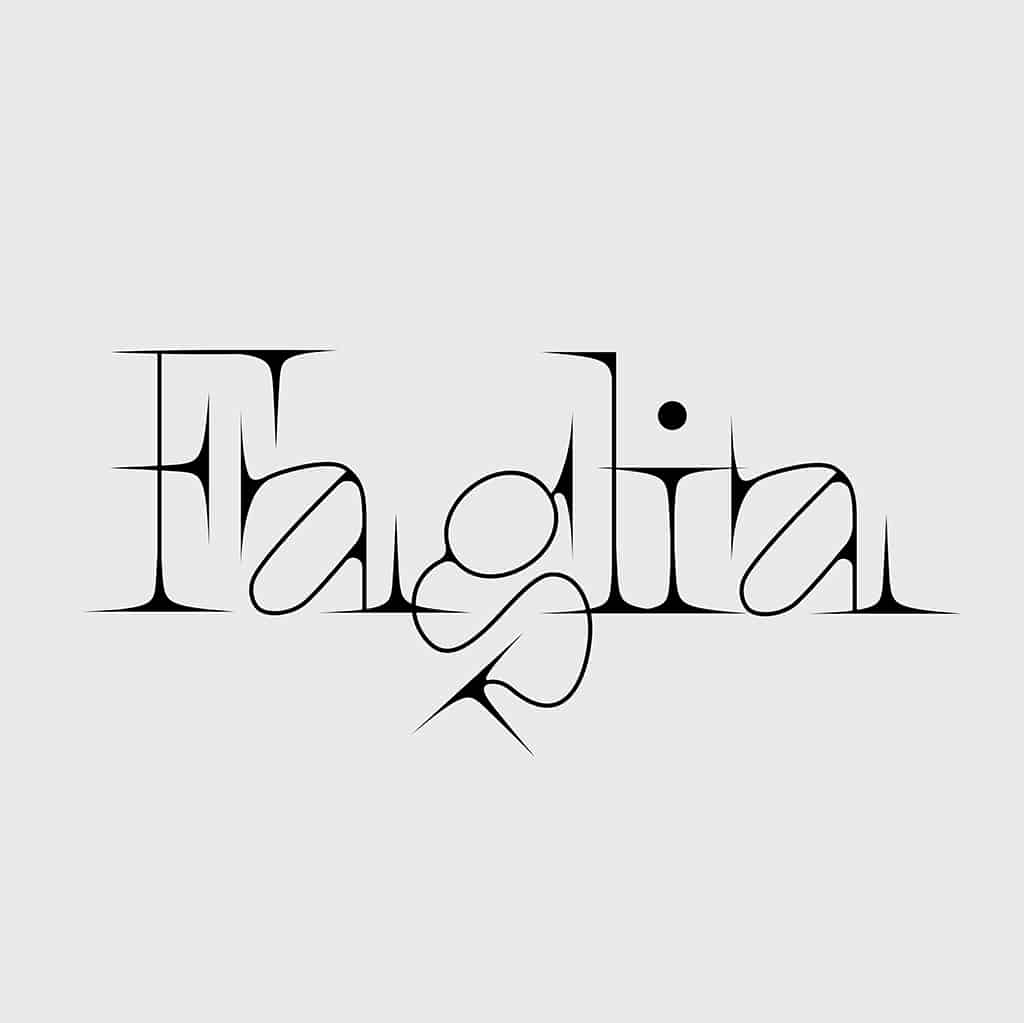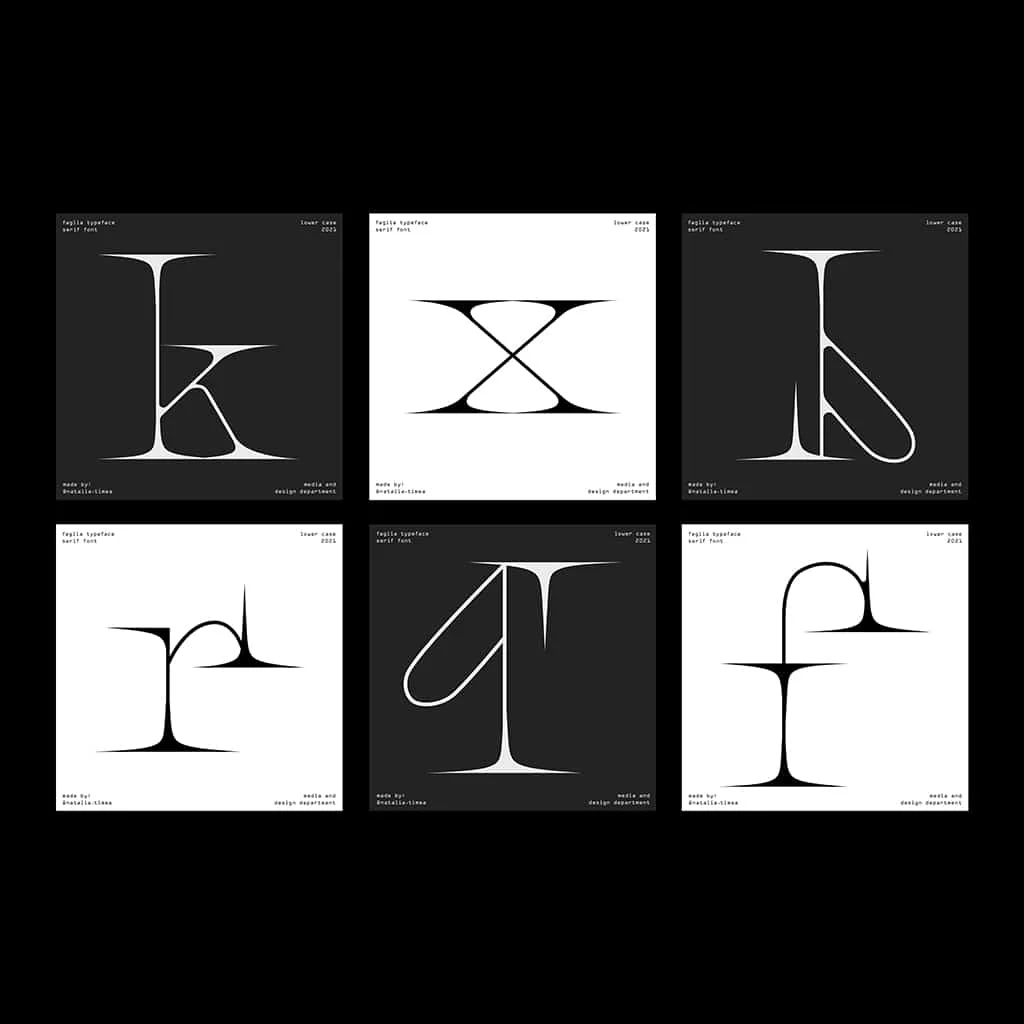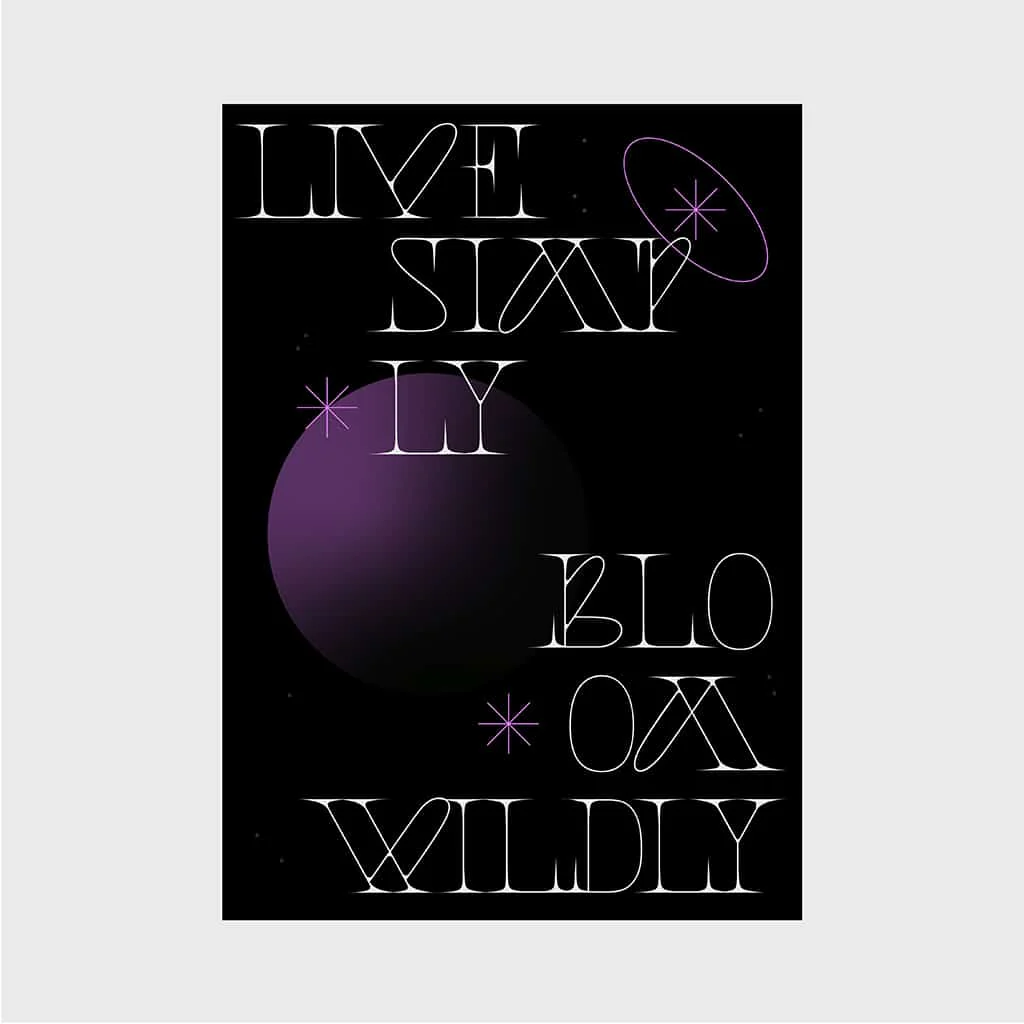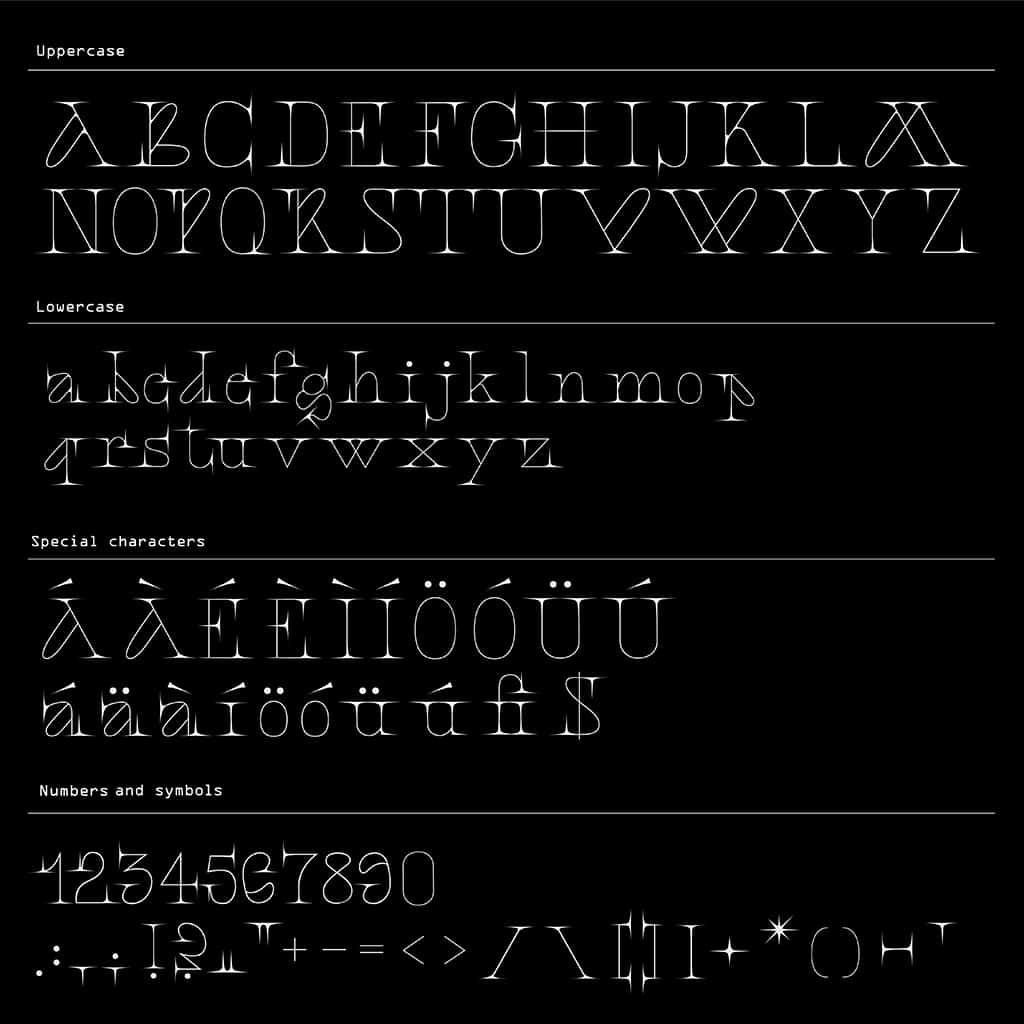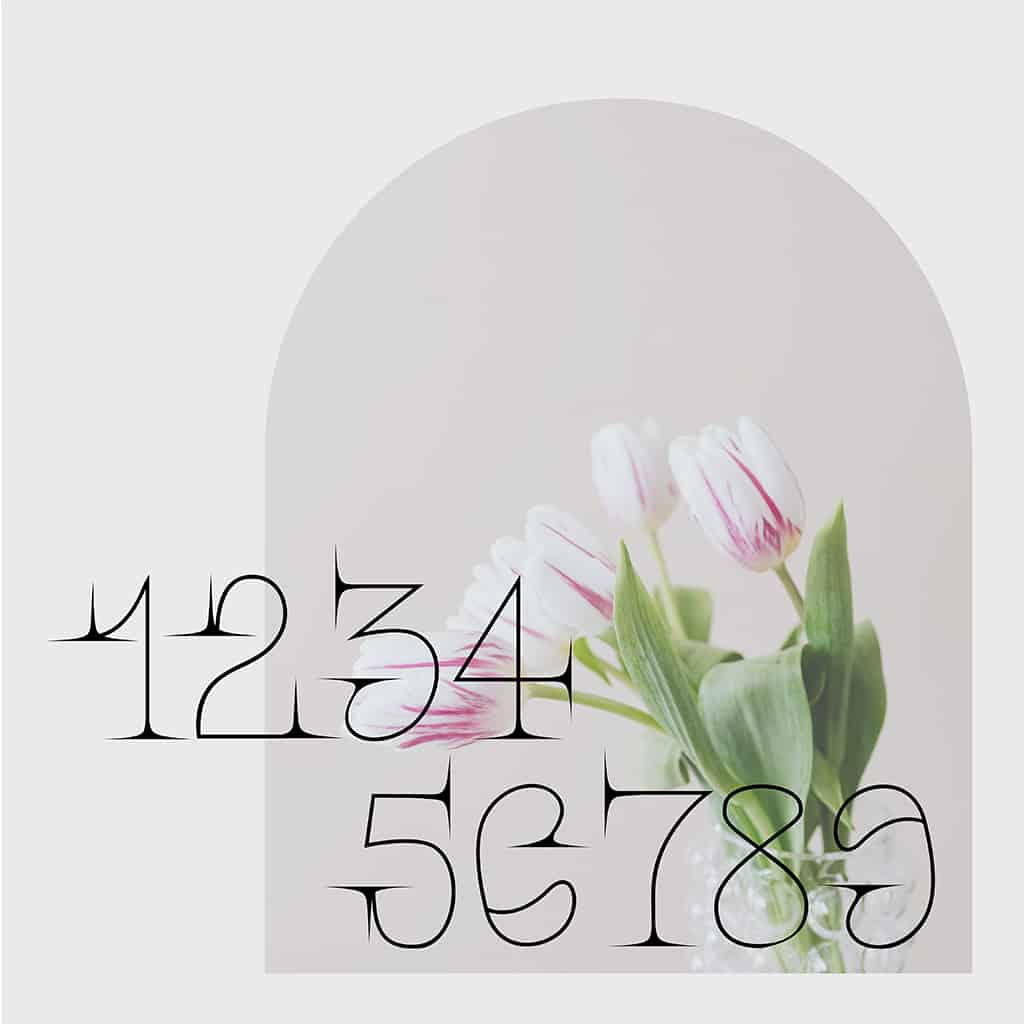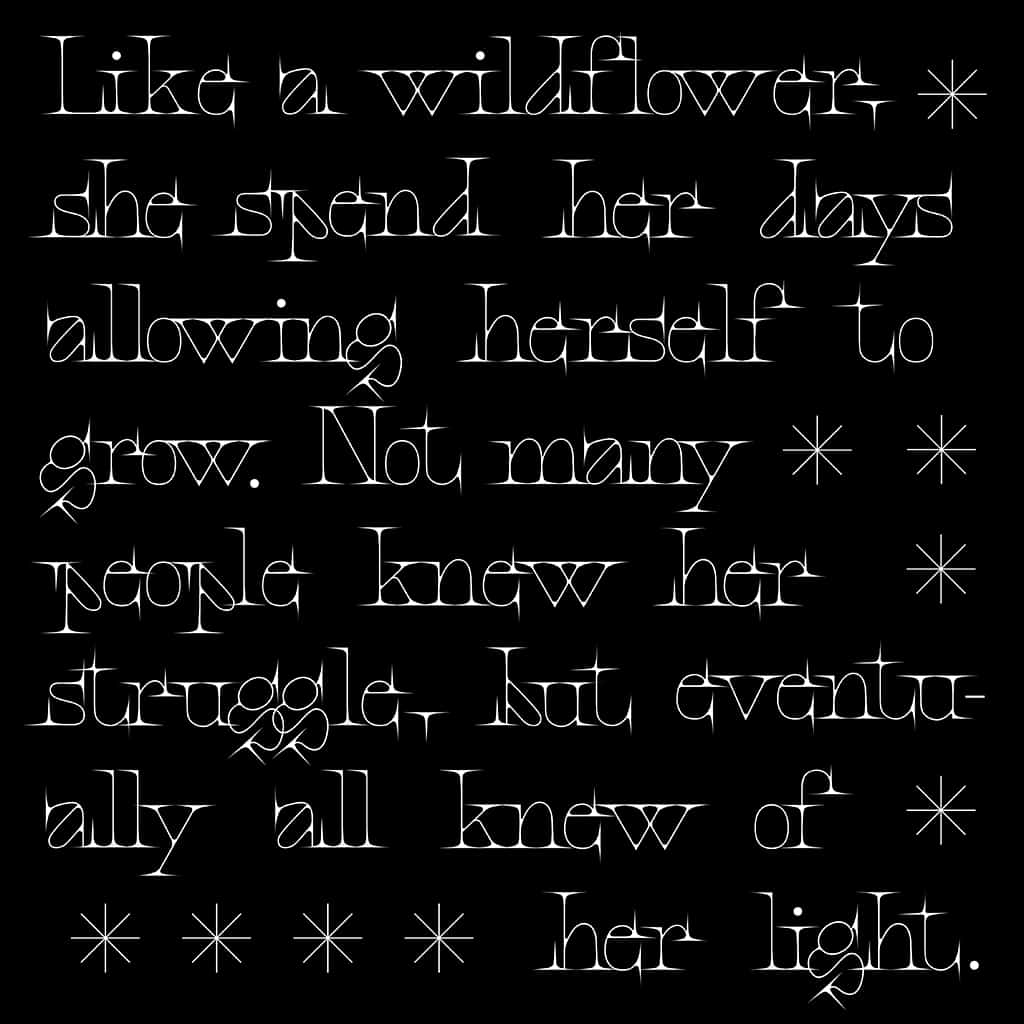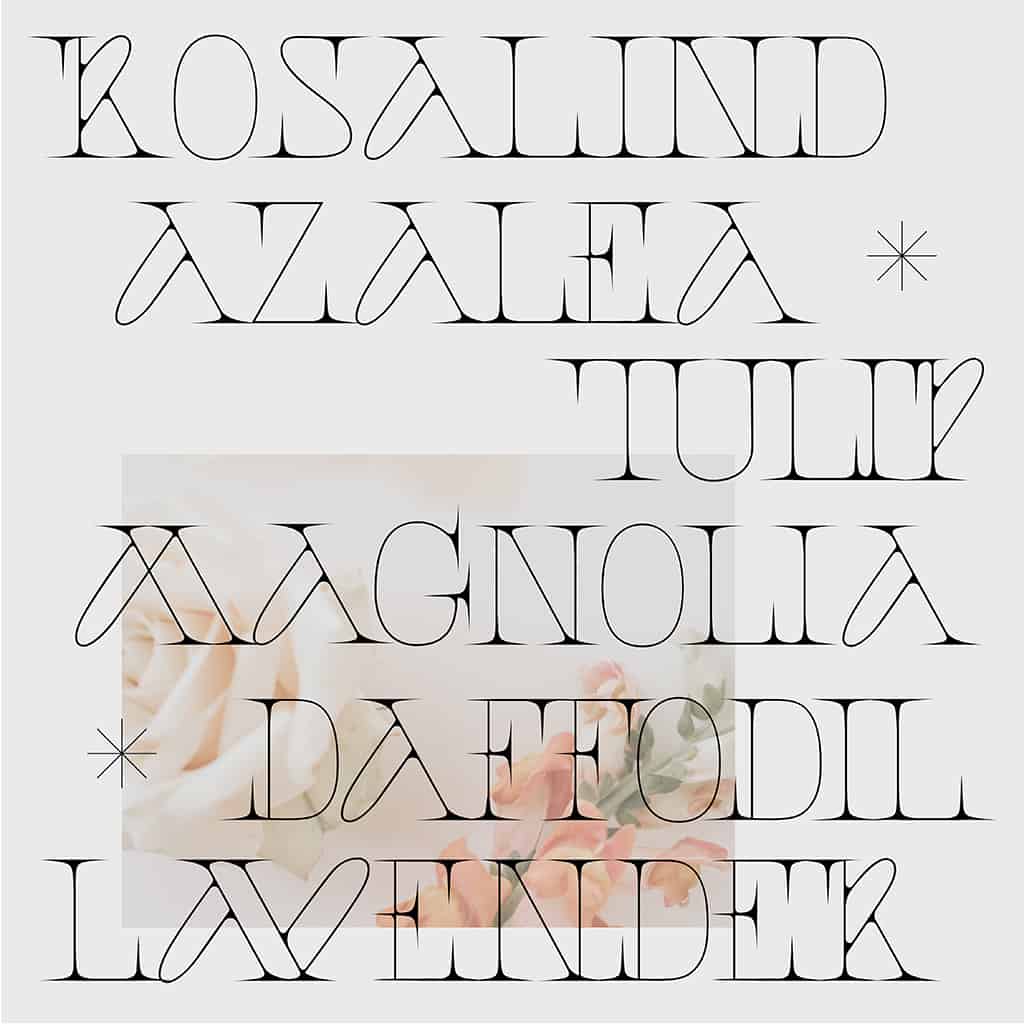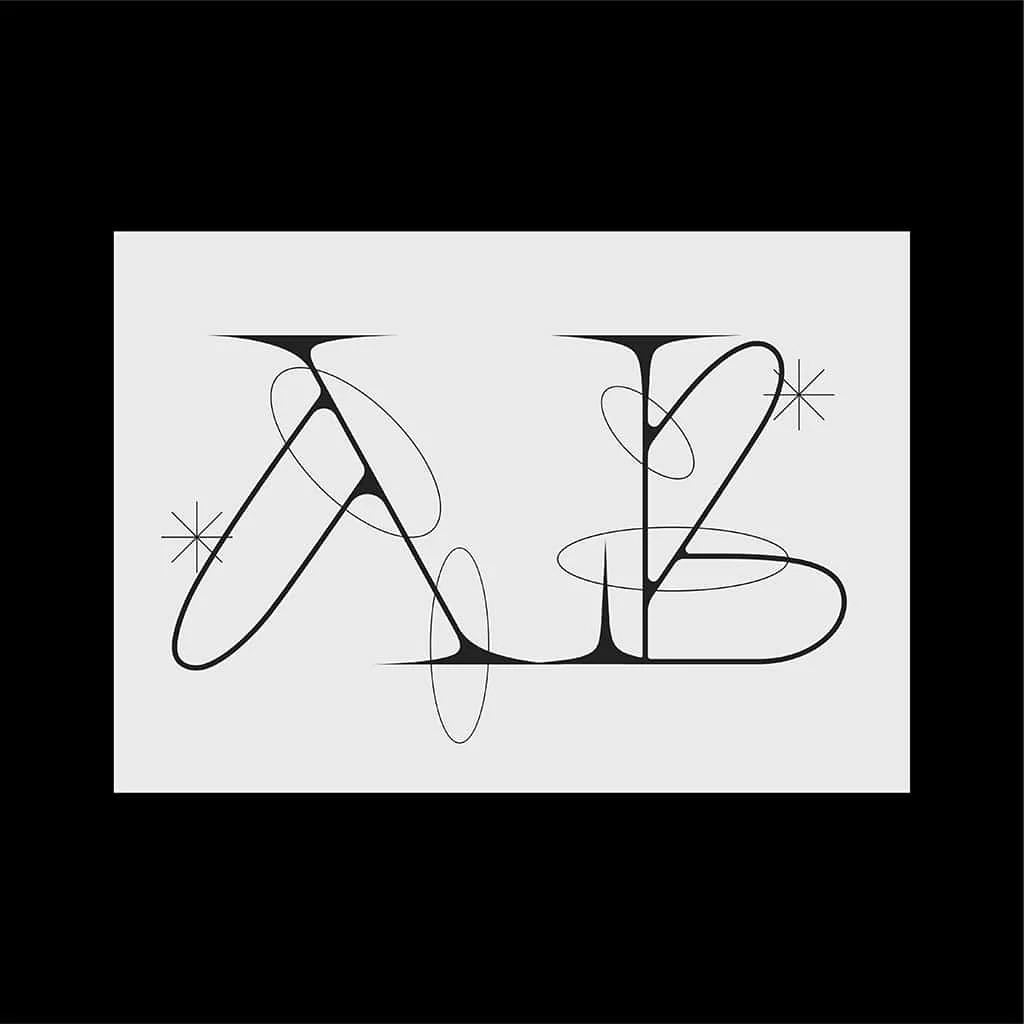
Faglia
Faglia is a modern and futuristic display serif typeface designed by Natalia Timea. Rebellious, sharp, and sassy, each letterform appears to spark with energy, creating a unique yet still a very readable aesthetic.
This typeface design is characterised by its delicate proportions combined with spiky serifs and distinctive features throughout. The contrast between its refined structure and edgy elements gives Faglia a dynamic and captivating look. Perfect for headlines, branding, and editorial design, Faglia brings a bold, contemporary flair to any project.
Its versatility allows it to seamlessly blend elegance with a rebellious edge, making it a standout choice for designers looking to make a strong visual impact.
Faglia is a modern and futuristic display serif typeface designed by Natalia Timea. Rebellious, sharp, and sassy, each letterform appears to spark with energy, creating a unique yet still a very readable aesthetic.
This typeface design is characterised by its delicate proportions combined with spiky serifs and distinctive features throughout. The contrast between its refined structure and edgy elements gives Faglia a dynamic and captivating look. Perfect for headlines, branding, and editorial design, Faglia brings a bold, contemporary flair to any project.
Its versatility allows it to seamlessly blend elegance with a rebellious edge, making it a standout choice for designers looking to make a strong visual impact.